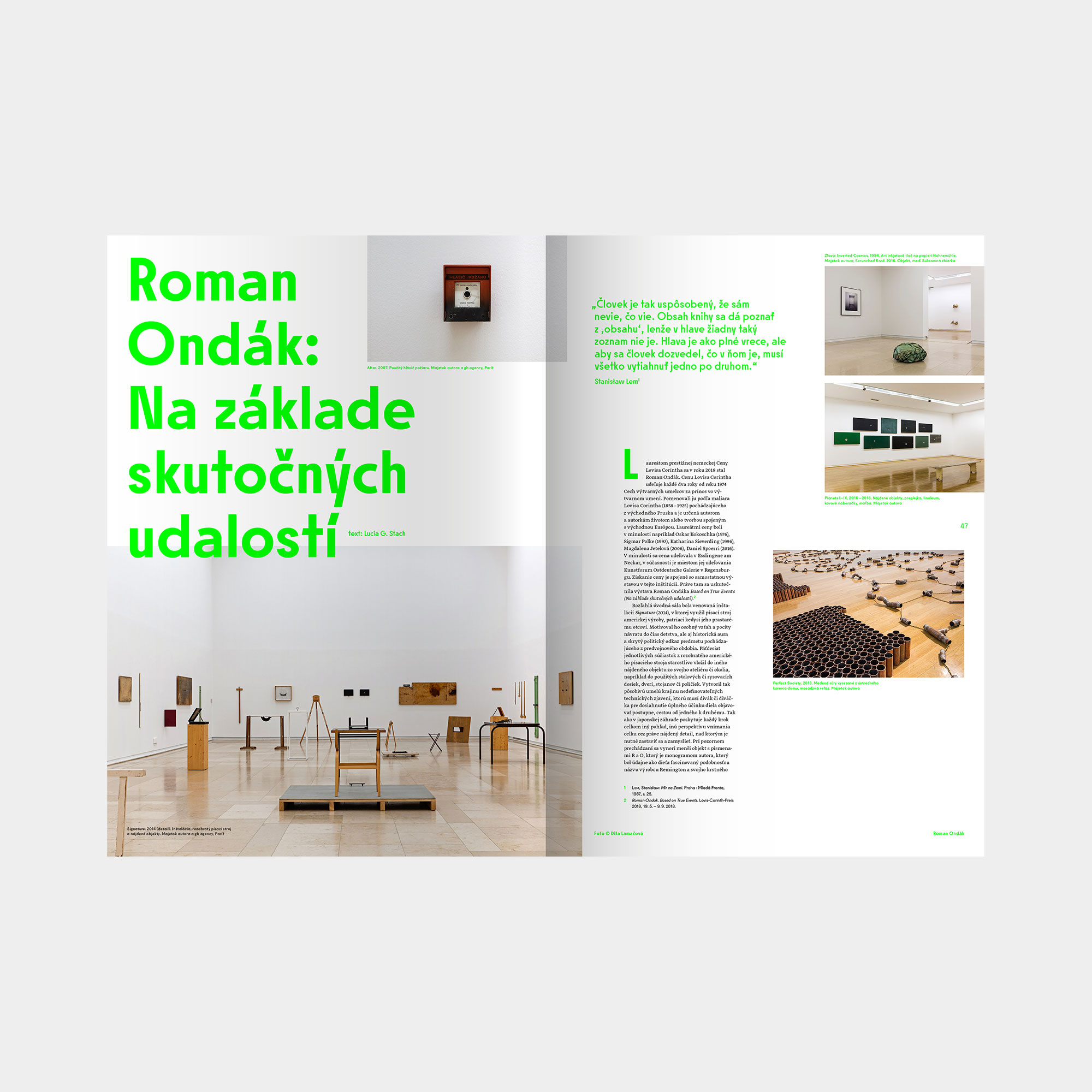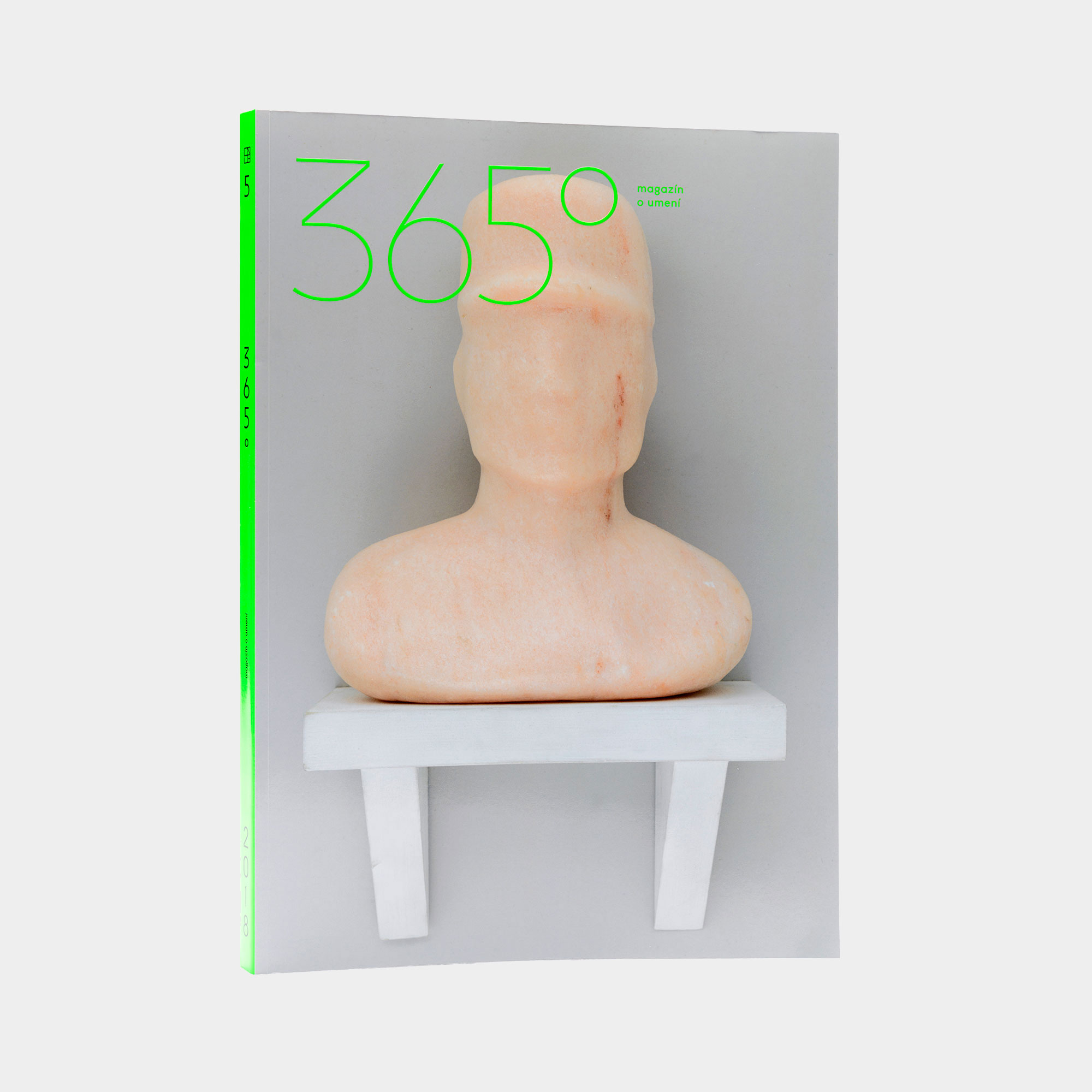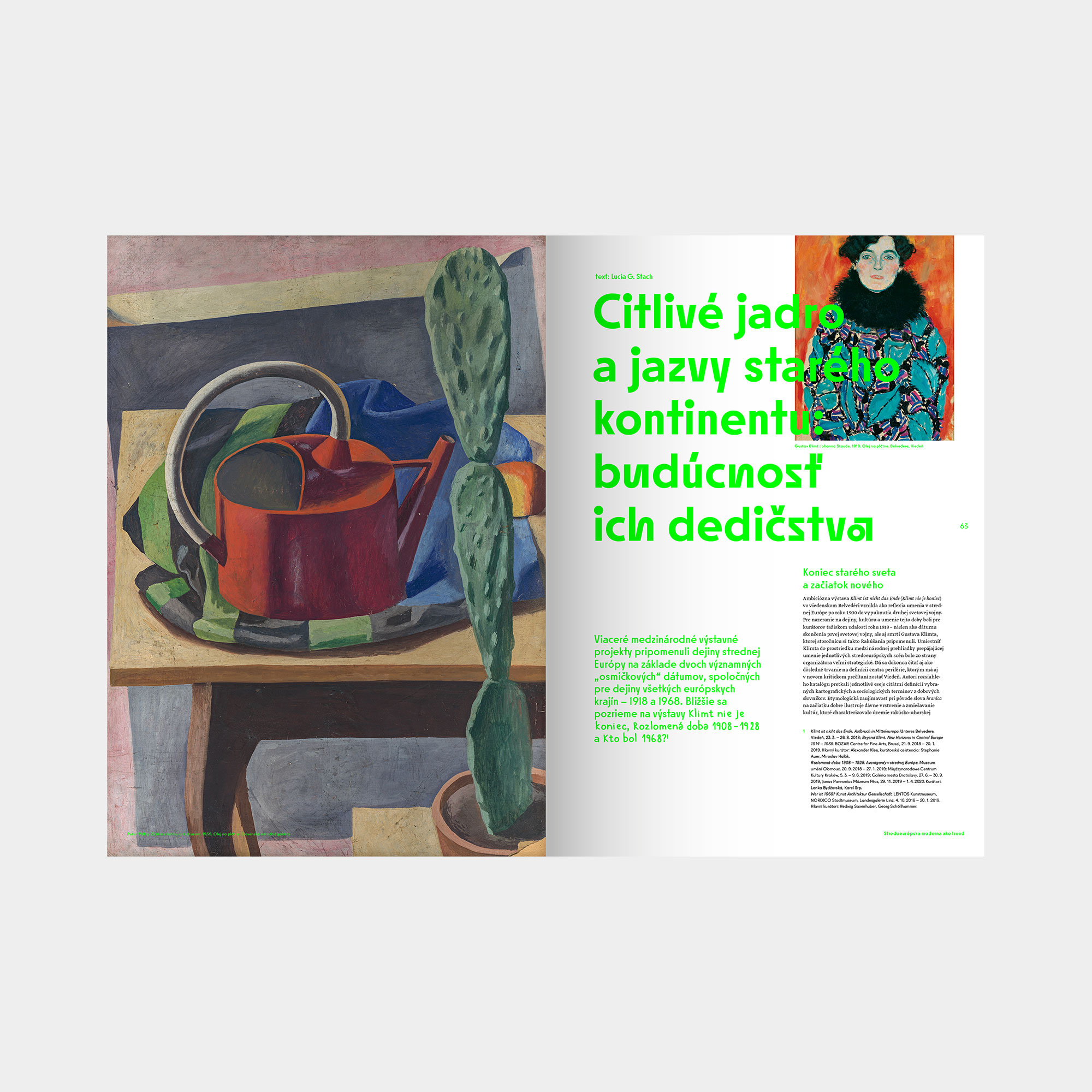
Slovak National Gallery
SNG Sans is a custom typeface designed specifically for use in the new visual identity of the renovated building of the Slovak National Gallery in Bratislava. The starting point for the design was the construction and proportions of Futura and Universal Grotesk, two typefaces that dominated editorial design and branding in Czechoslovakia in the second half of the 20th century, precisely at the time of the construction of the gallery’s iconic bridge, which is also the most prominent part of the current reconstruction.
Formally, SNG Sans is a constructed geometric sans-serif typeface featuring eight weights with italics, small caps, broad Latin language support, multiple sets of figures, and various OpenType features. The typeface is primarily intended for display setting — this is reflected in the wide range of weights from Hair to Black, a large number of glyph variants, and significant variability in glyph proportions — glyphs such as n, m, u are narrow, while circular glyphs such as o, b, d are wide and round.